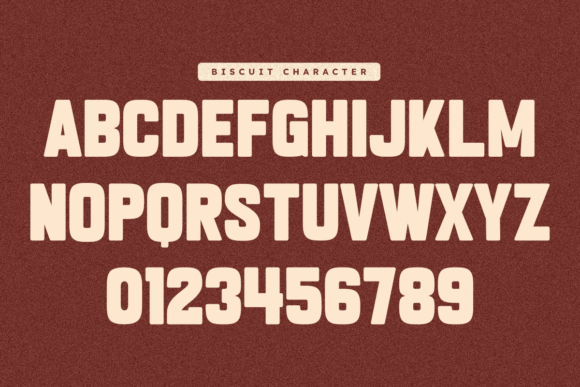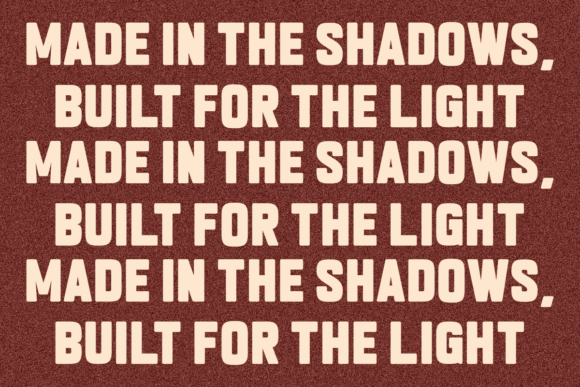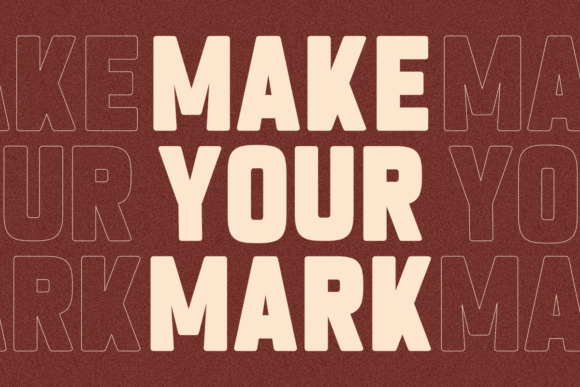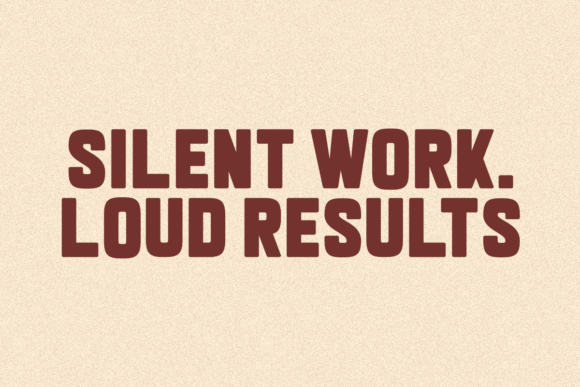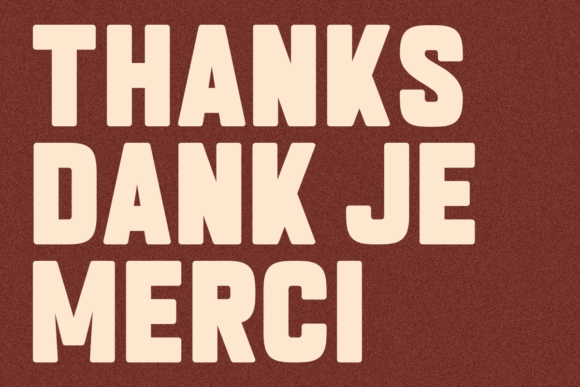
Biscuit Font: The Ultimate Retro Sans Serif for Modern Designs
In the world of typography, fonts play a crucial role in conveying the tone and aesthetic of a brand or design. For designers, crafters, and entrepreneurs looking to add a touch of nostalgia to their modern creations, the Biscuit font is an exceptional choice. This bold retro sans serif font is beautifully crafted to infuse your designs with a warm, vintage charm that’s sure to captivate your audience.
The Characteristics of Biscuit Font
Biscuit font boasts a thick, heavy aesthetic with smooth rounded details, making it a standout in the world of typography. Its solid, blocky weight is perfect for creating high-impact designs that demand attention. The font’s retro charm is effortlessly trendy, evoking memories of classic designs from the past while still feeling modern and fresh.
- Optimal readability: Biscuit font is designed to be highly legible, ensuring that your message is conveyed clearly and effectively.
- Effortlessly trendy: The font’s retro charm is effortlessly trendy, making it perfect for designers who want to create modern designs with a vintage twist.
- High-impact typography: Biscuit font is bold and attention-grabbing, making it perfect for designs that demand attention.
- Clean and precise: The font’s clean outlines and smooth curves make it perfect for crafting and vinyl cutting projects.
In conclusion, Biscuit font is an exceptional choice for designers, crafters, and entrepreneurs looking to add a touch of nostalgia to their modern creations. With its bold retro aesthetic, smooth rounded details, and high-impact typography, this font is sure to elevate your designs and take your brand to the next level.